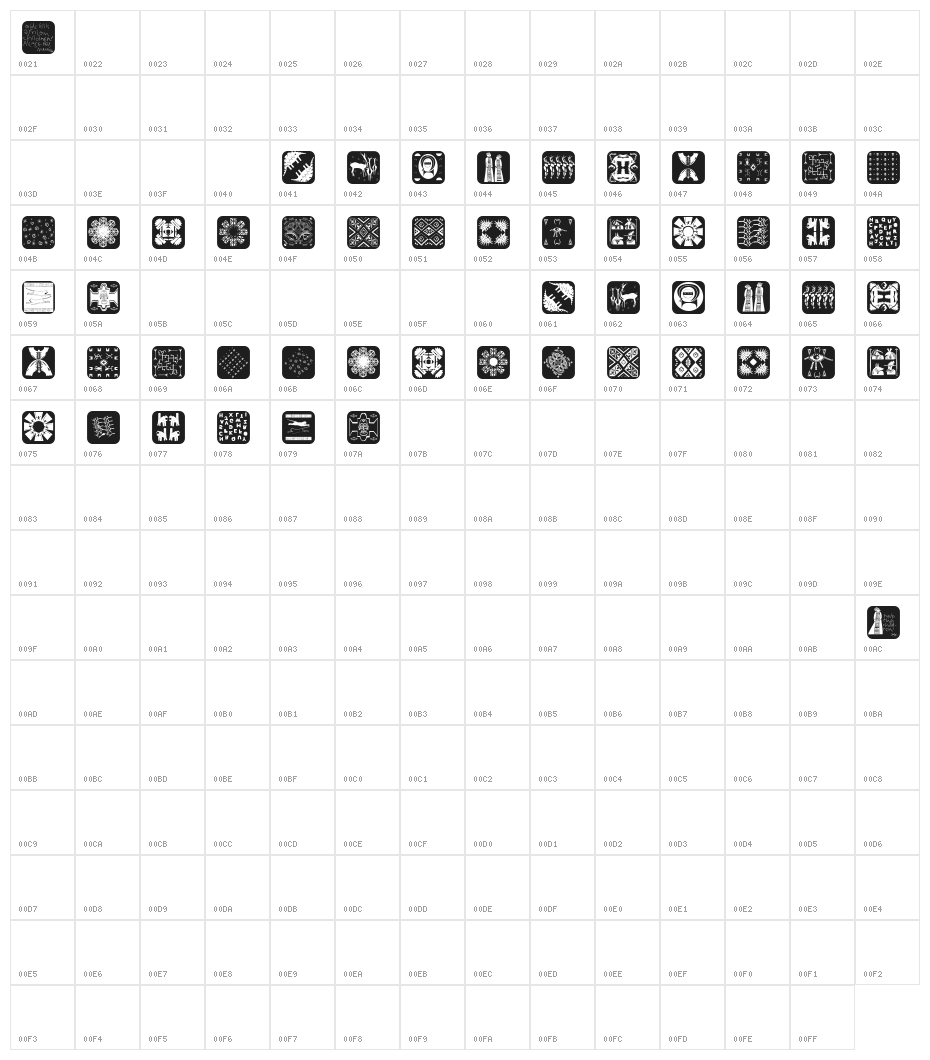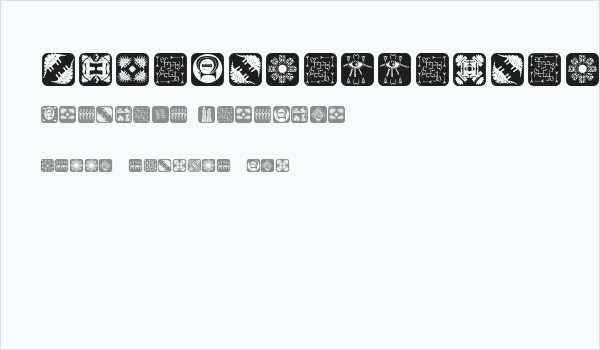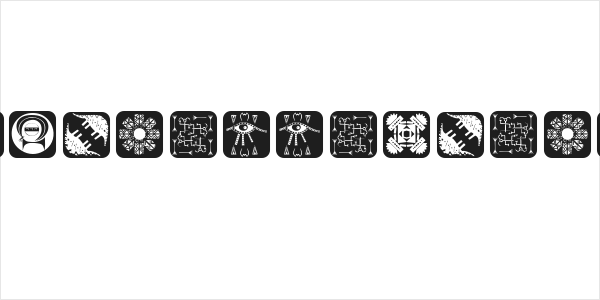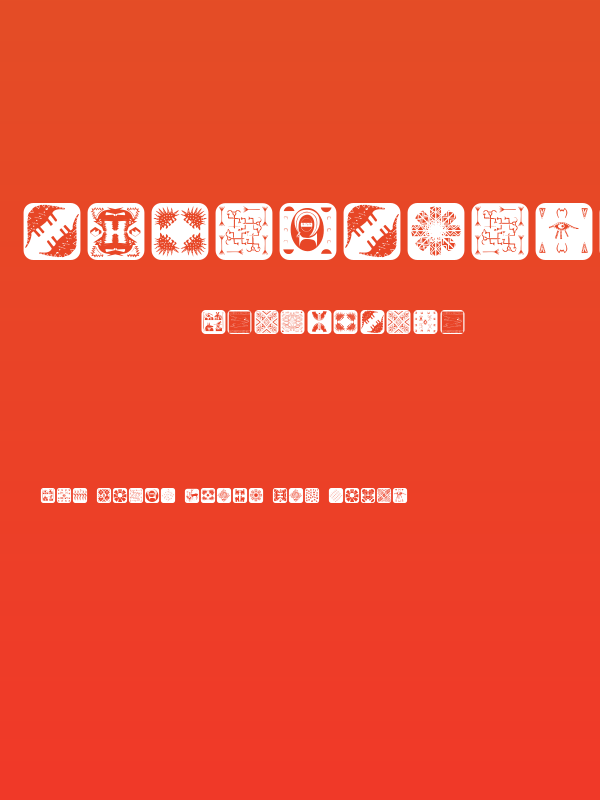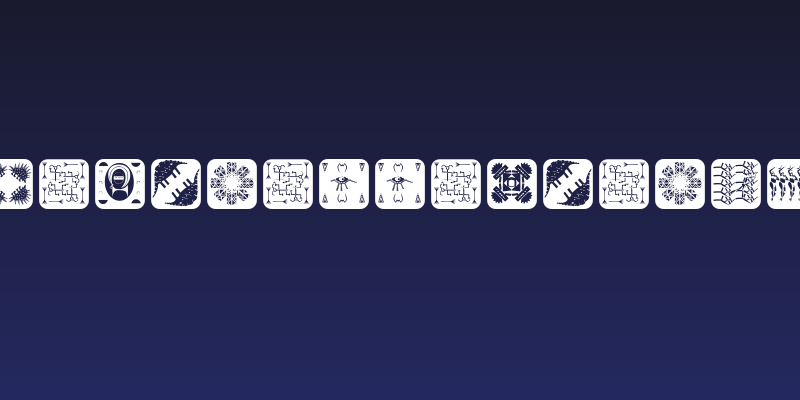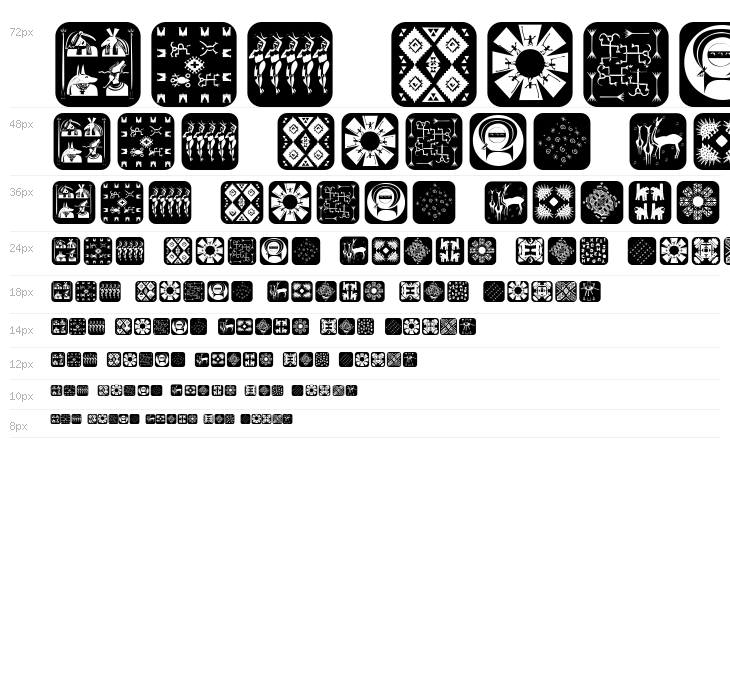
AfricanissimaInvers Font
AfricanissimaInvers Description
A highly decorative and pictorial font composed of intricate, hand-drawn symbols and motifs inspired by African art and patterns, with each character represented by a unique illustration rather than traditional letterforms.
Overall StyleDecorative, Ethnic, Artistic
Use CaseLogos, Headlines, Posters, Thematic graphics
Proposed ProjectsPosters, cultural event branding, educational materials, art projects, decorative headings.